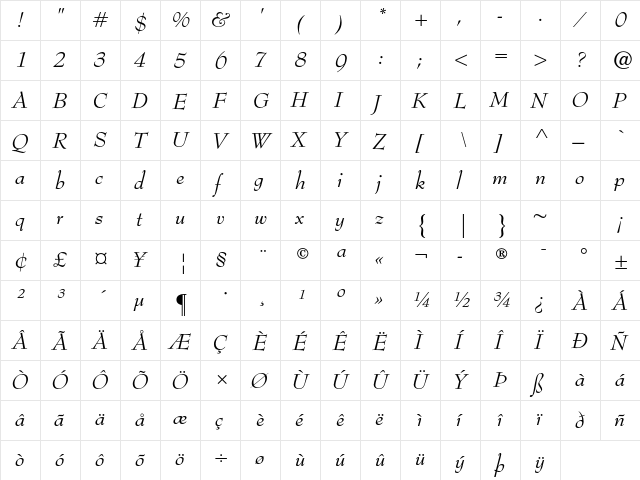
Bernhard Modern Std Italic Font Preview
Bernhard Modern Std Italic
Bernhard Modern Std Italic Font Details
| Designer | Lucian Bernhard |
Design Context for Bernhard Modern Std Typeface
Bernhard Modern Std is a composed and adaptable typeface that performs quietly and consistently across a wide range of design contexts. The slanted form adds forward momentum and visual energy.
Pro Tip: Try Bernhard Modern Std for annotation and caption copy alongside an upright companion — the contrast in angle creates a dynamic but ordered typographic system.